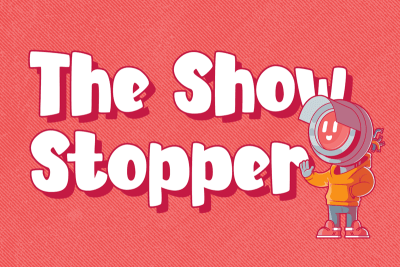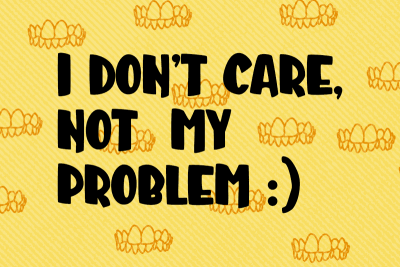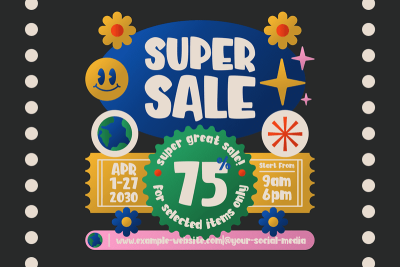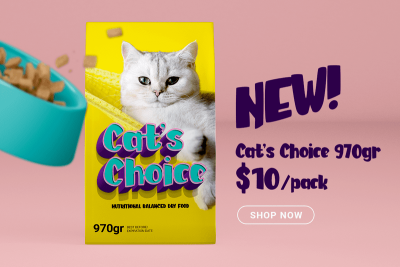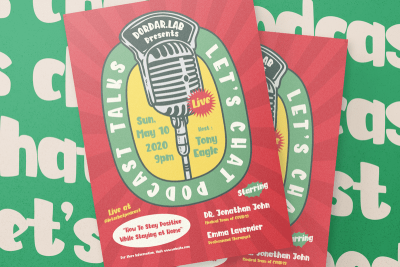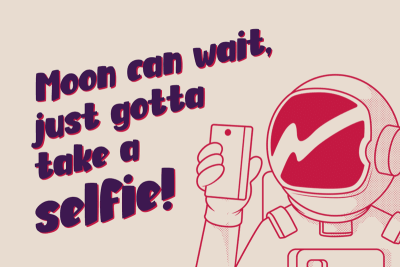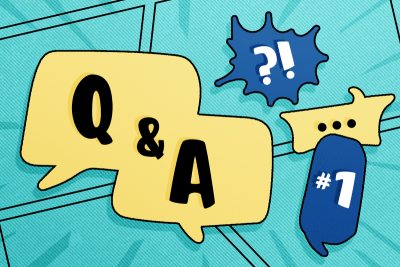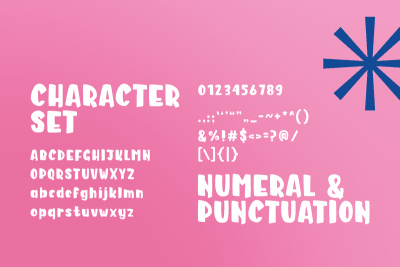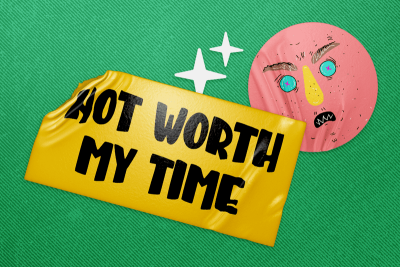
Funny Font Ding Dong is a lively, energetic typeface that adds fun and excitement to any design. With its thick, bouncy letterforms and slightly irregular shapes, this font brings a dynamic and playful touch. Therefore, it is an excellent choice for projects needing humor and joy. The bold strokes and subtle hand-drawn feel make texts look more engaging and expressive.
Designed with a comic-inspired aesthetic, Ding Dong carries a delightful charm that evokes laughter and happiness. Moreover, the exaggerated letter spacing and curved edges give it a whimsical look, making it perfect for eye-catching titles, posters, and branding. Whether for digital content, marketing materials, or print media, this font ensures messages appear approachable and fun.
Furthermore, its versatility allows it to blend into various creative projects, from playful ads to quirky social media posts. Ding Dong doesnโt just communicateโit entertains! If you want to add personality to your text, this typeface is the perfect choice.
Who Should Use Funny Font Ding Dong?
This font is perfect for designers, brands, and creatives looking to inject fun into their visuals. Hereโs who can benefit the most from Funny Font Ding Dong:
- Comic Book Creators & Illustrators โ The bold, hand-drawn feel makes it great for comics, graphic novels, and humorous illustrations. Consequently, it enhances storytelling with expressive design.
- Childrenโs Book Designers & Educators โ Its playful and readable style makes learning materials, storybooks, and worksheets more engaging for kids. As a result, this fosters better interaction and excitement.
- YouTubers & Content Creators โ Ideal for thumbnails, video intros, and social media posts, adding a dynamic, entertaining vibe. Therefore, it instantly grabs viewersโ attention.
- Event Planners & Party Supplies โ Great for party invitations, posters, and decorations needing a fun, cheerful aesthetic. Thus, it sets a lively, festive mood.
- Toy & Game Brands โ Works well for packaging, promotional materials, and branding, making products more appealing to kids and families. Additionally, it also strengthens brand recognition.
- Advertising & Marketing Professionals โ Ideal for catchy headlines, playful campaigns, and promotions that need a humorous twist. Hence, it makes messages more memorable.
- Food & Beverage Businesses โ A great choice for dessert shops, cafes, and snack brands aiming for a lighthearted, inviting feel. Moreover, it conveys warmth and friendliness.
In conclusion, Funny Font Ding Dong is more than just a typefaceโitโs a statement of joy and fun. Whether crafting branding materials, designing for kids, or simply wanting a font that makes people smile, Ding Dong is ready to bring your ideas to life with its bold and comic-inspired charm.